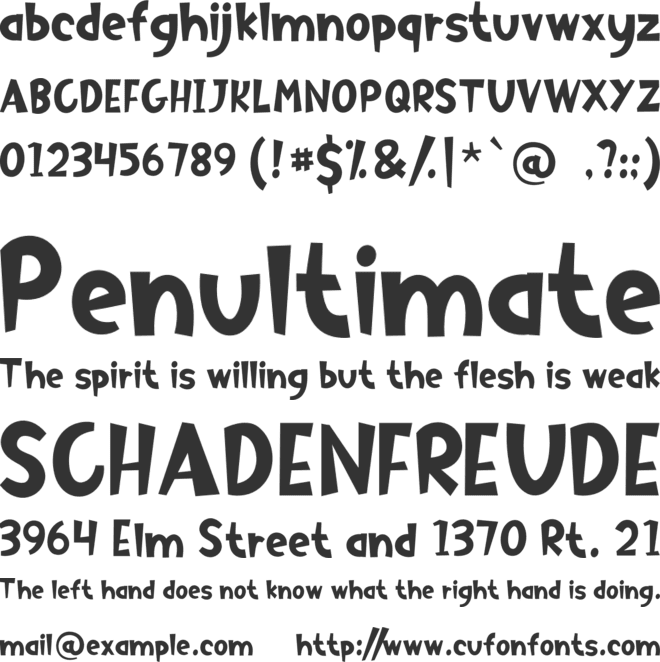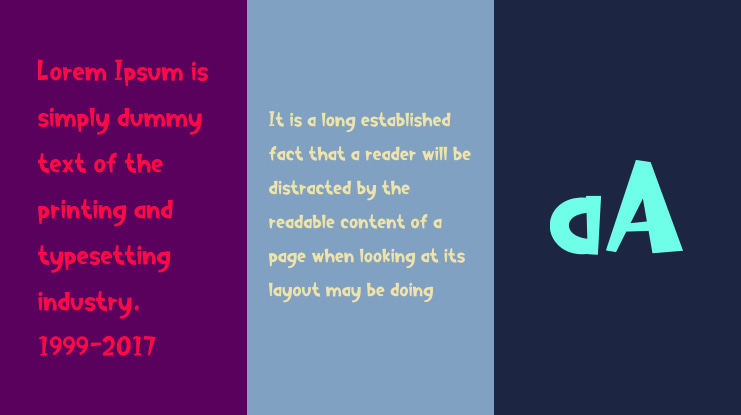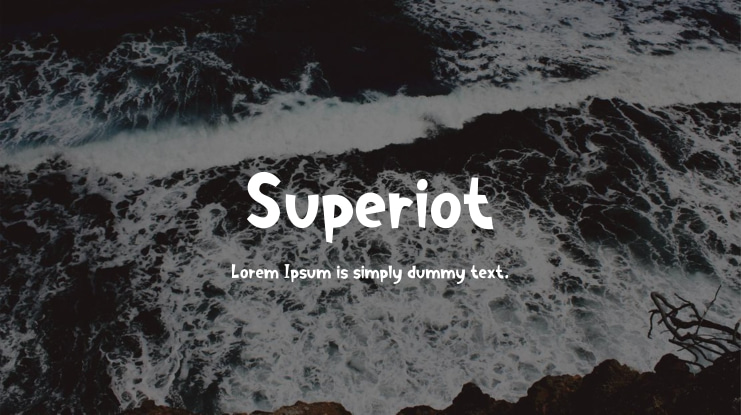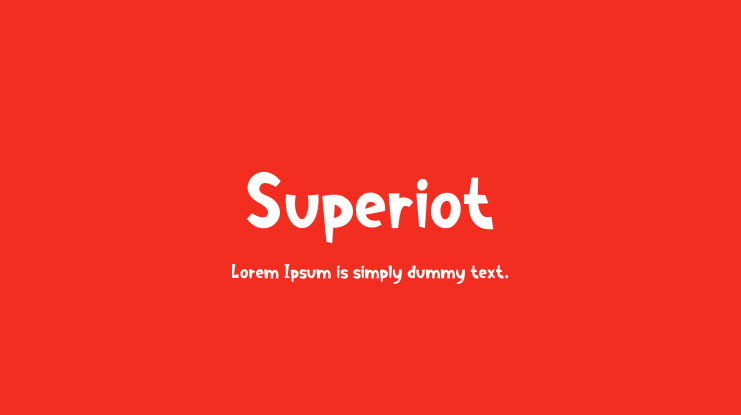
Superiot Font
Superiot is inspired by the style of letters in comics featuring less serious and fun characters. It is a sans serif with display font characteristics, providing a playful and retro pop art design impression. Superiot is ideal for creating designs with non-serious concepts, such as designs for children, book headers, and, of course, text in comics.
Superiot is also perfect for magazine cover designs, brochures, flyers, Instagram ads, Canva designs, and so on, especially those with comic, non-serious, pop art, mobile game, and fun design themes. Additionally, this font is very easy to use in both design and non-design programs because all character changes and glyphs are supported by Unicode (PUA).